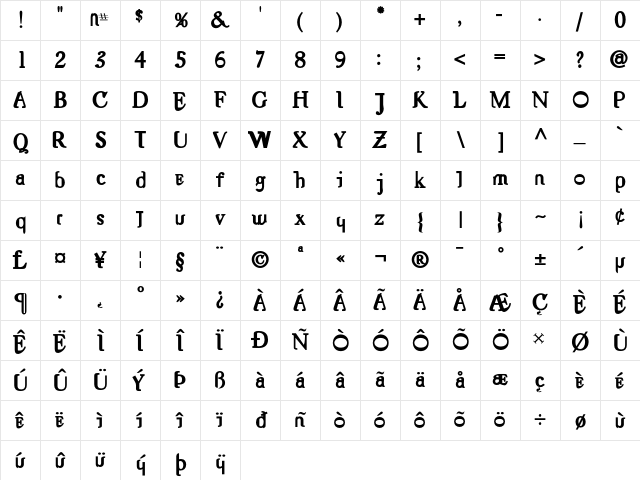
Nameless Bold Free Font
Nameless Bold
Design Context for Nameless
Nameless is a composed and adaptable typeface that performs quietly and consistently across a wide range of design contexts. Its bold stroke weight gives it real presence on the page.